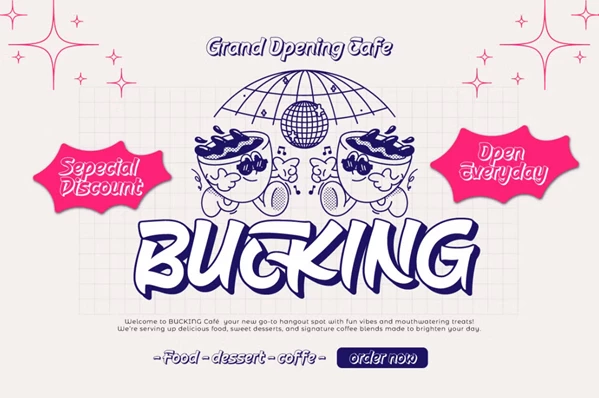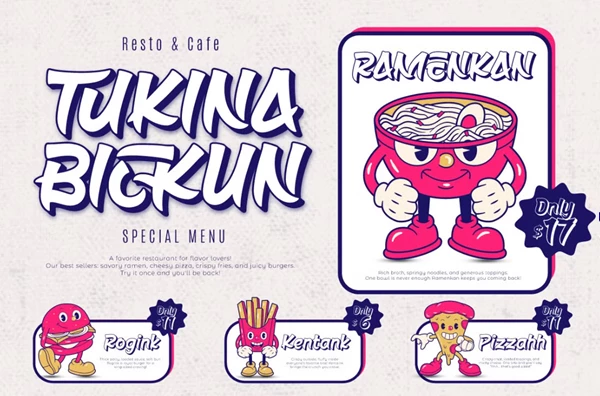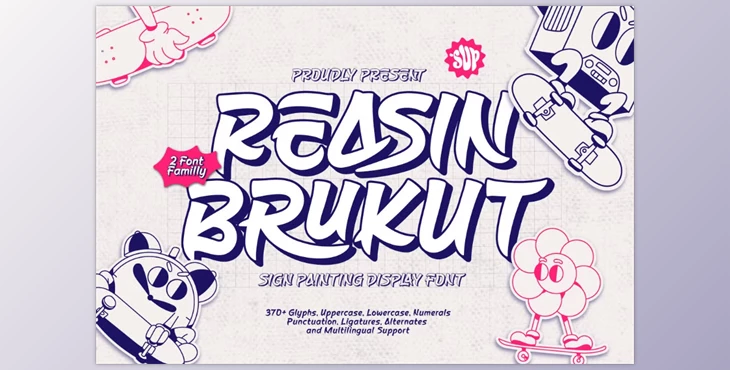
Reasin Brukut - Sign Painting Display Font:
Reasin Brukut is a retro hand-painted display font family, inspired by classic signs and then hand-crafted to create the illusion of sign painting. Offering three styles, Regular, Blurry, and Shadow, this font achieves an extraordinary typography aesthetic reminiscent of some of the best hand-painted designs. Regular uses its blotted strokes and thick brush calligraphy to create a dynamic presence across any design, perfect for branding, headlines, and poster headlines. Blurry softly creates a vintage appearance, great for blurry focus effects or retro imagery. In contrast, Shadow creates depth and dimension to lift typography off the page.
From restaurant menus and shop signs to drink labels and retro nostalgia brands, this font boasts an amazing presence with personality and intent that's visually engaging enough to utilize for print or web. The font family comes in OTF, TTF, WOFF, and WOFF2 files for easy accessibility through multiple programs. It consists of a full array of glyphs with OpenType features best accessed through Adobe apps, CorelDRAW, and more. It works in 85 different languages; PUA encoded characters keep them all accessible without any other necessary design tools.